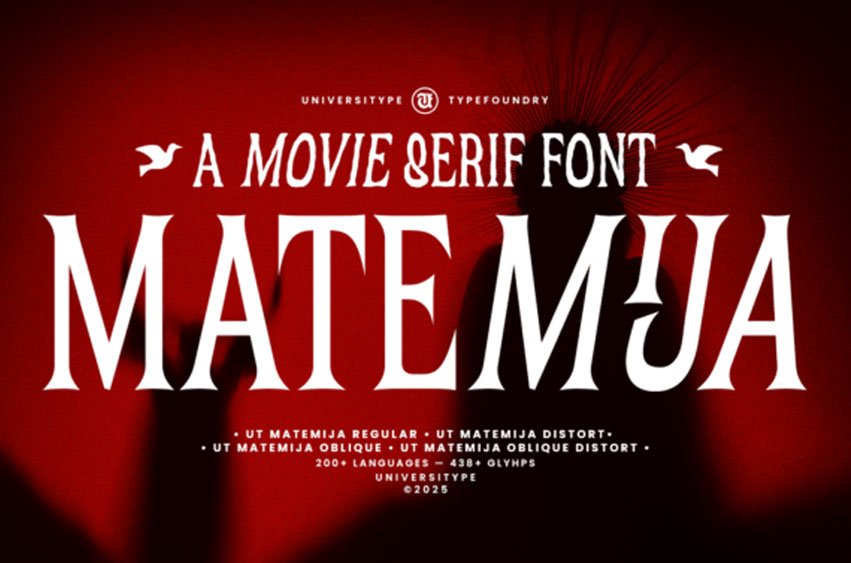
Matemija Font is a spectacular serif typeface hailing from the world of dramatic movie titles and emotionally-charged headlines.
Oozing with cinematic charm, it’s artfully inspired by the unique amalgamation of classic film title cards and psyche-shaking horror cinema. Sharp, pointed serifs interlock with organically distorted curves to choreograph a visual rhythm that’s as intense as it is controlled.
No doubt, Matemija beautifully marries a nostalgic charm with a contemporary finesse. The high-contrast strokes radiate a loud, unmissable presence, whereas the delicately softened curves, paired with meticulously warped details, offer a rich sensory experience filled with emotion and atmosphere.
Tailor-made for display use, Matemija pays top-priority to eliciting mood, persona, and powerful impacts. Included in the package are four unique styles allowing instant mood recalibrations – from simple and serene to creepy and unnerving. Yet, throughout this rollercoaster of stylizations, the consistent typographic voice of Matemija invariably shines through.